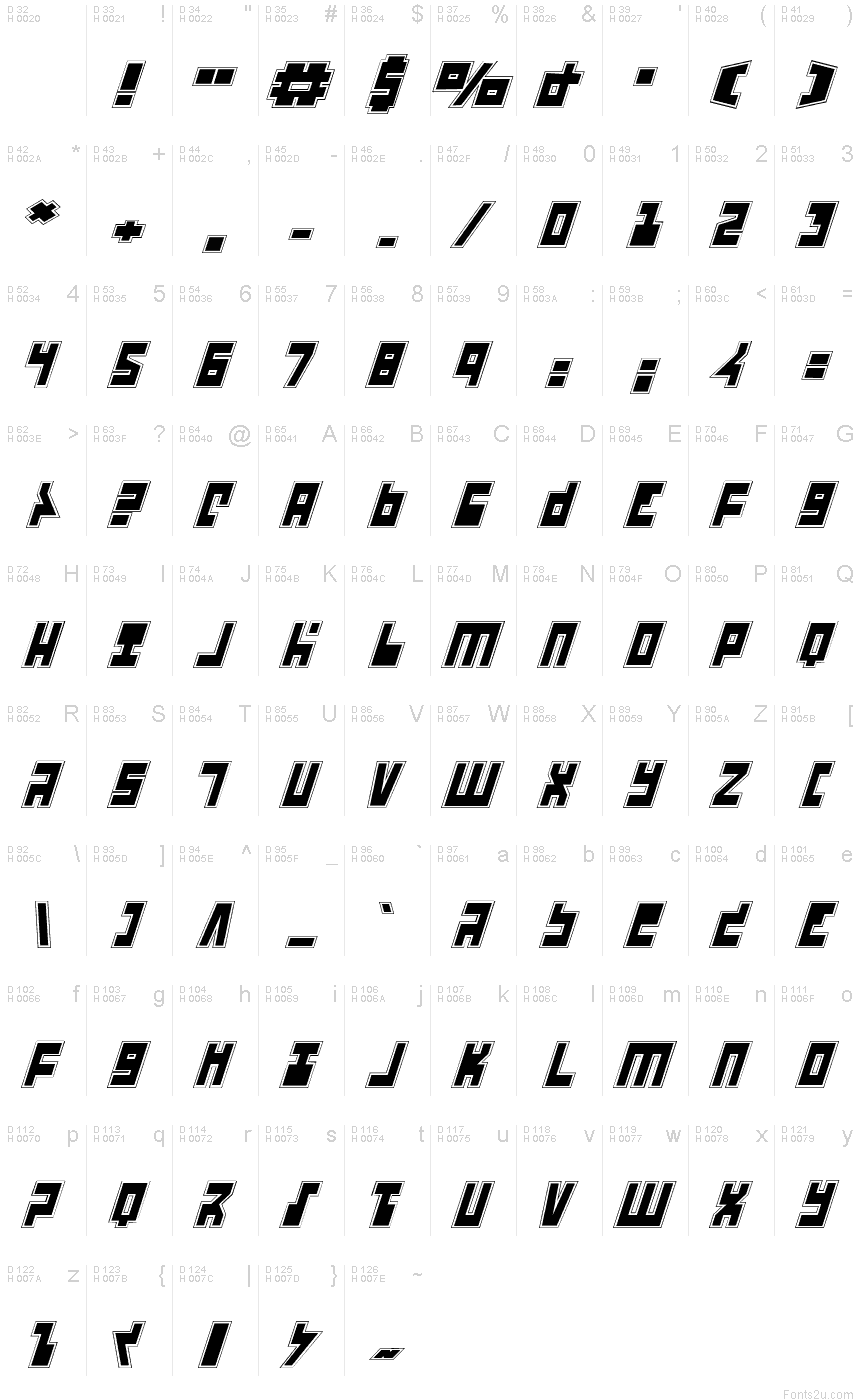
UFO Hunter Academy Italic by Daniel Zadorozny of Iconian Fonts is a free outlined techno display font with the force of slanted athletic lettering. Its broad block capitals lean sharply forward, and clipped corners keep the shapes angular. Multiple inset lines give each letter a layered, emblem-like build.
Those repeated outlines connect easily with spacecraft silhouettes and racing stripes, making the font useful for game covers, esports graphics, and science-fiction merchandise. The inner borders echo badges and speed graphics, fitting team logos and motorsport posters.
UFO Hunter Academy Italic